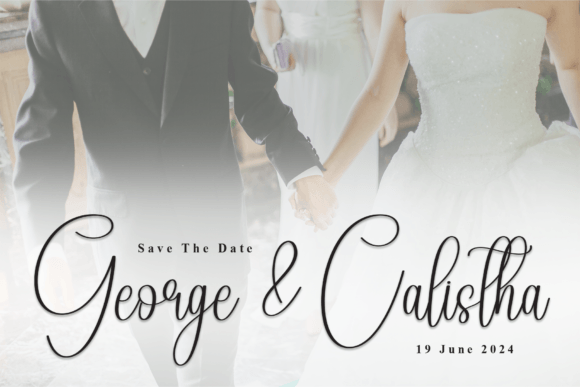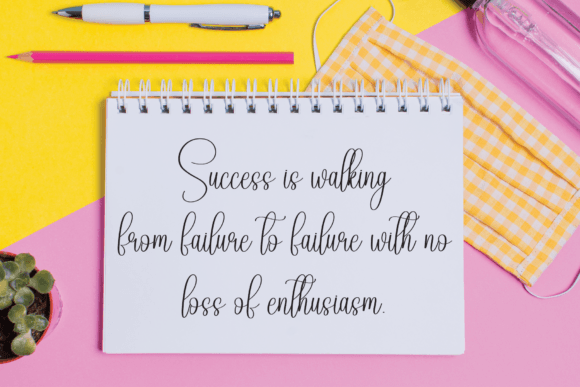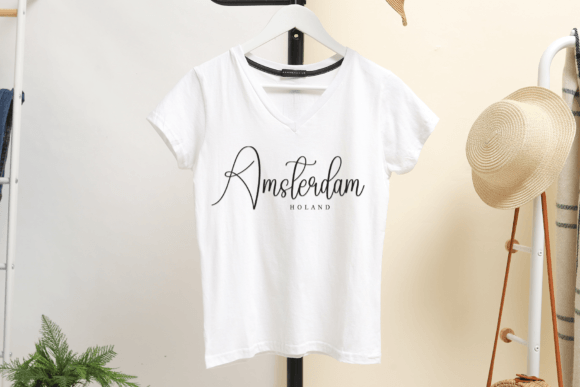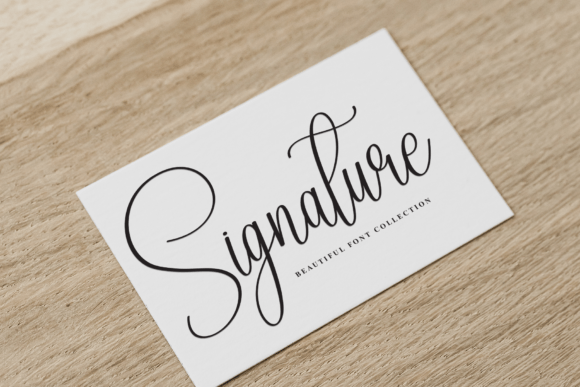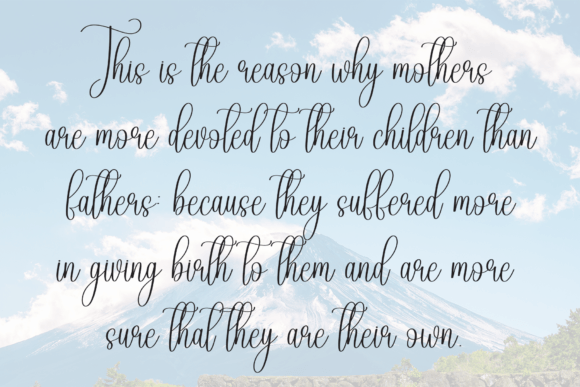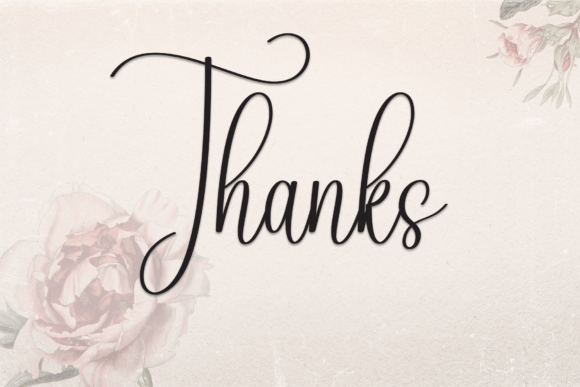
Discover the Charm of Barbie Vintage Font: A Sweet and Friendly Handwritten Delight
Are you a designer or crafter looking for a font that can add a touch of sweetness and friendliness to your projects? Look no further than the Barbie Vintage Font! This beautiful handwritten font is perfect for a wide range of designs, from DIY crafts to professional branding, and its natural and unique style makes it incredibly versatile.
What Makes Barbie Vintage Font So Special?
Barbie Vintage Font is a sweet and friendly handwritten font that is sure to capture the hearts of designers and crafters alike. Its unique style is reminiscent of classic handwritten fonts, but with a modern twist that makes it perfect for contemporary designs. The font’s natural and effortless look makes it incredibly fitting for a large pool of designs, from playful and whimsical to elegant and sophisticated.
One of the best things about Barbie Vintage Font is its incredible versatility. Whether you’re designing a logo, creating a craft project, or developing a brand identity, this font is sure to be a great fit. The only limit is your imagination! With Barbie Vintage Font, you can create a wide range of designs, from:
- Playful and colorful children’s products
- Elegant and sophisticated branding and packaging
- Whimsical and creative DIY crafts and decorations
- Beautiful and feminine stationery and invitations
Key Features of Barbie Vintage Font
So, what makes Barbie Vintage Font so special? Here are just a few of its key features:
- Handwritten style: Barbie Vintage Font is a beautiful handwritten font that adds a personal touch to any design.
- Natural and unique style: The font’s natural and unique style makes it incredibly fitting for a wide range of designs.
- Sweet and friendly: Barbie Vintage Font is a sweet and friendly font that is sure to capture the hearts of your audience.
- Versatile: The font is incredibly versatile and can be used for a wide range of designs, from playful and whimsical to elegant and sophisticated.
How to Use Barbie Vintage Font in Your Designs
Using Barbie Vintage Font in your designs is easy! Here are a few tips to get you started:
- Pair it with other fonts: Barbie Vintage Font pairs perfectly with other fonts, such as sans-serif fonts for a modern look or script fonts for a more elegant feel.
- Experiment with colors: The font looks great in a wide range of colors, from bright and bold to soft and pastel.
- Add embellishments: Consider adding embellishments, such as flowers or stars, to give your design a more whimsical feel.